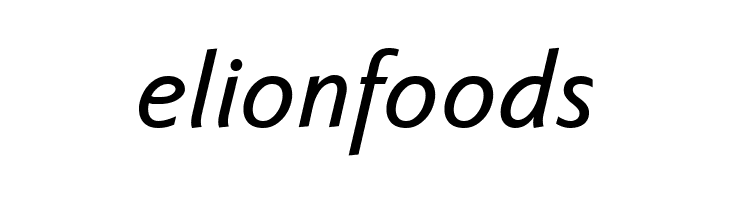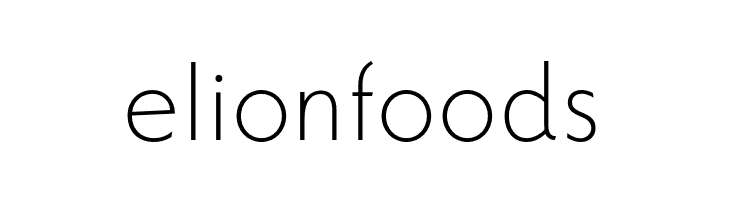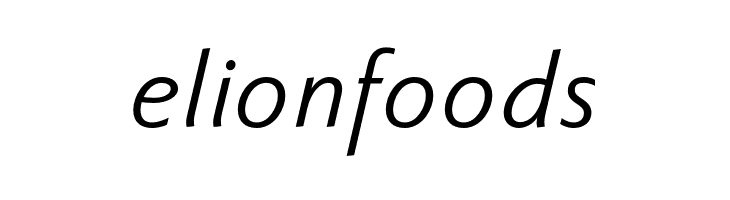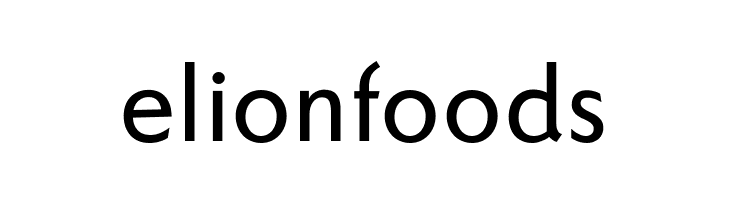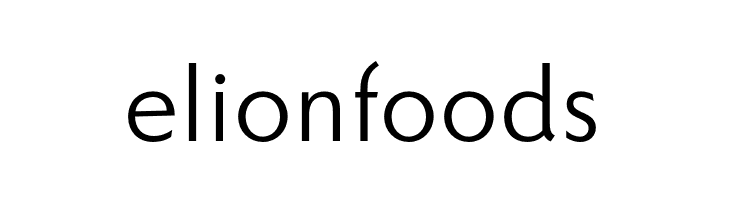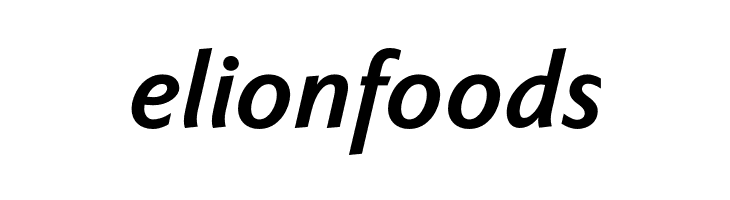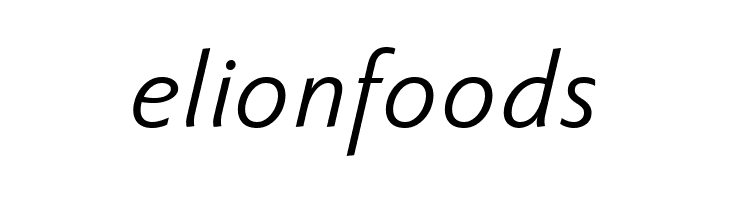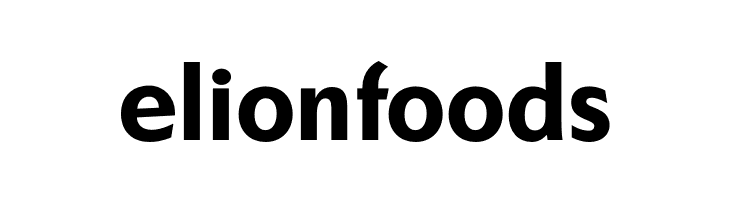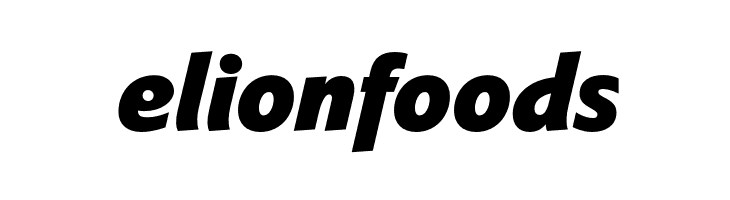
A modern, italic sans-serif font with clean lines and balanced proportions.
A clean, modern sans-serif typeface with uniform stroke width and balanced spacing.
A modern, italic sans-serif font with clean lines and balanced proportions.
A bold, modern sans-serif font with uniform strokes and balanced spacing.
A clean, modern sans-serif font with uniform stroke width and excellent legibility.
A modern, italic sans-serif font with a dynamic and versatile style.
A modern sans-serif font with an italic slant, offering elegance and readability.
A modern, italic sans-serif font with clean lines and a dynamic slant.
A bold, clean typeface with thick strokes and uniform design.
A bold, italicized font with strong, dynamic strokes and a modern feel.